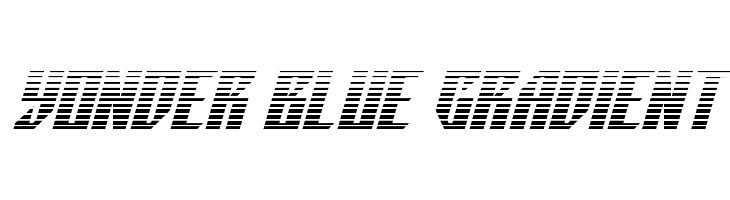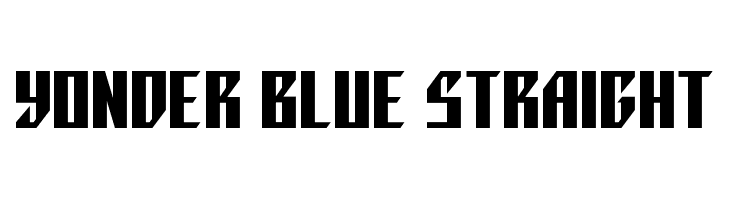
• Yonder Blue Condensed
A bold, angular, and condensed font with a modern, edgy style.
• Yonder Blue Condensed Straight
A bold, geometric font with sharp, angular lines and a modern aesthetic.
• Yonder Blue Straight
A bold, angular font with a modern, industrial aesthetic.
• Yonder Blue Gradient
A bold, futuristic font with a dynamic striped pattern and italicized slant.
• Yonder Blue Semi-Leftalic
A bold, angular font with a geometric and dynamic slant.
• Yonder Blue Italic
A bold, italic font with sharp angles and a futuristic style.
• Yonder Blue Spaced Straight
A bold, geometric font with sharp angles and high contrast.
• Yonder Blue 3D Straight
A bold, geometric 3D font with a futuristic and industrial aesthetic.
• Yonder Blue Expanded
A bold, angular font with a futuristic and dynamic style.
• Yonder Blue Spaced
A bold, angular font with a dynamic and futuristic style.